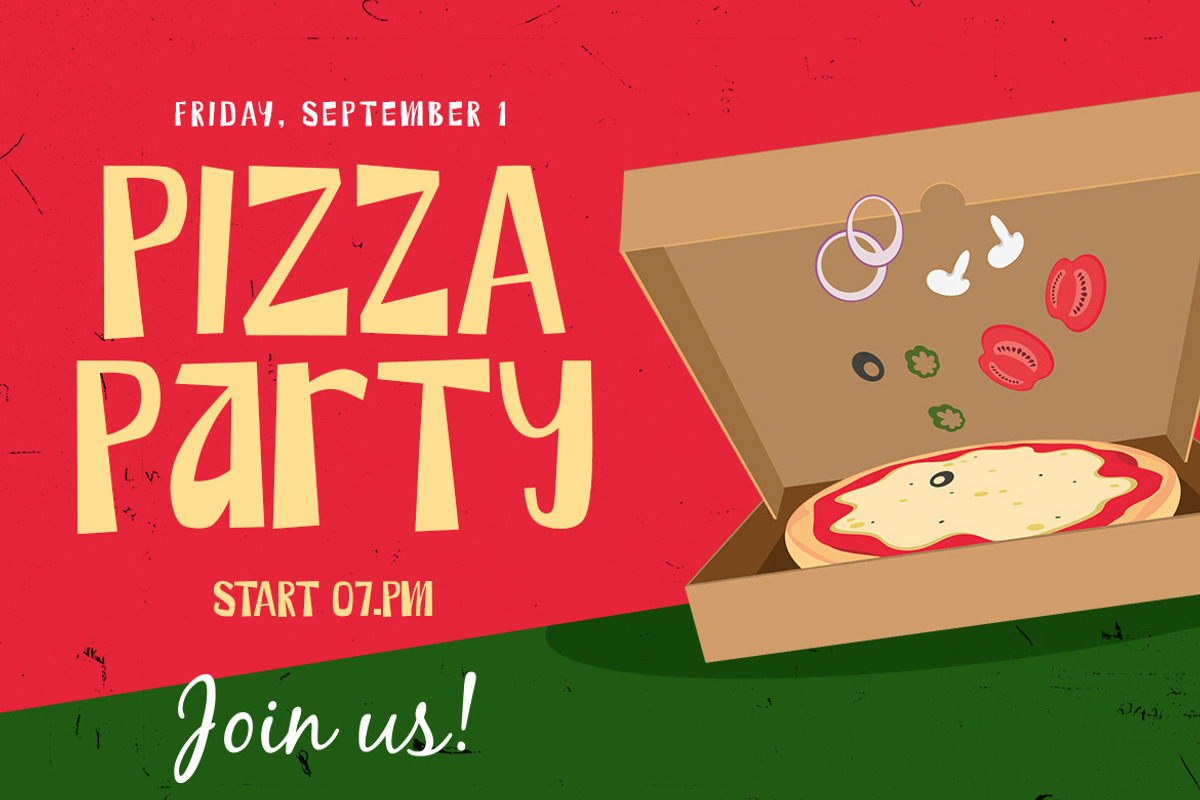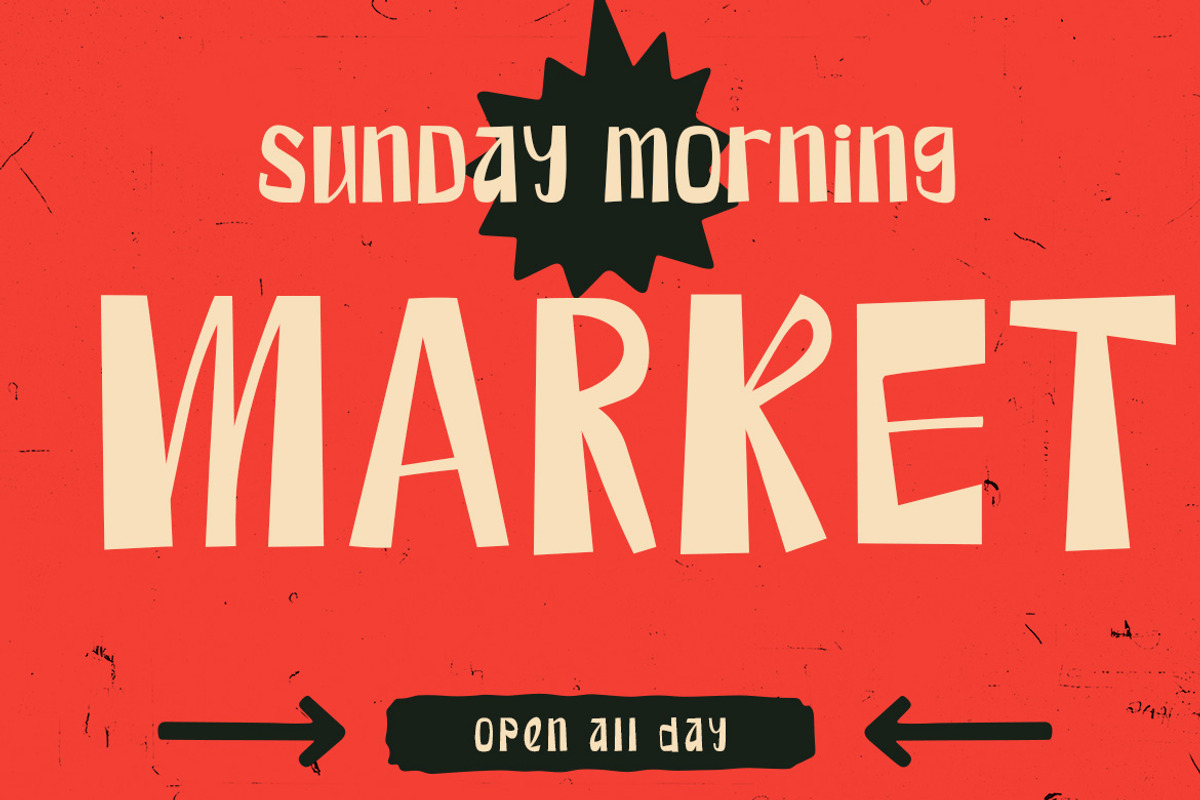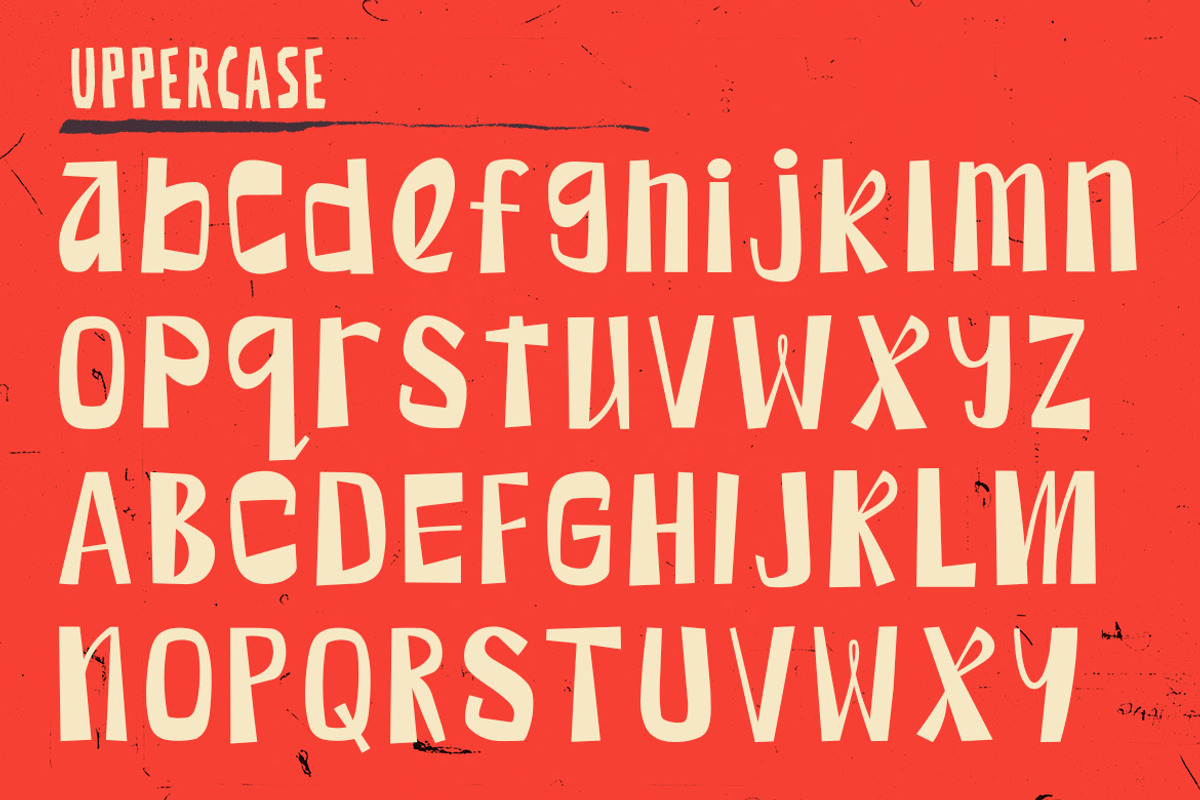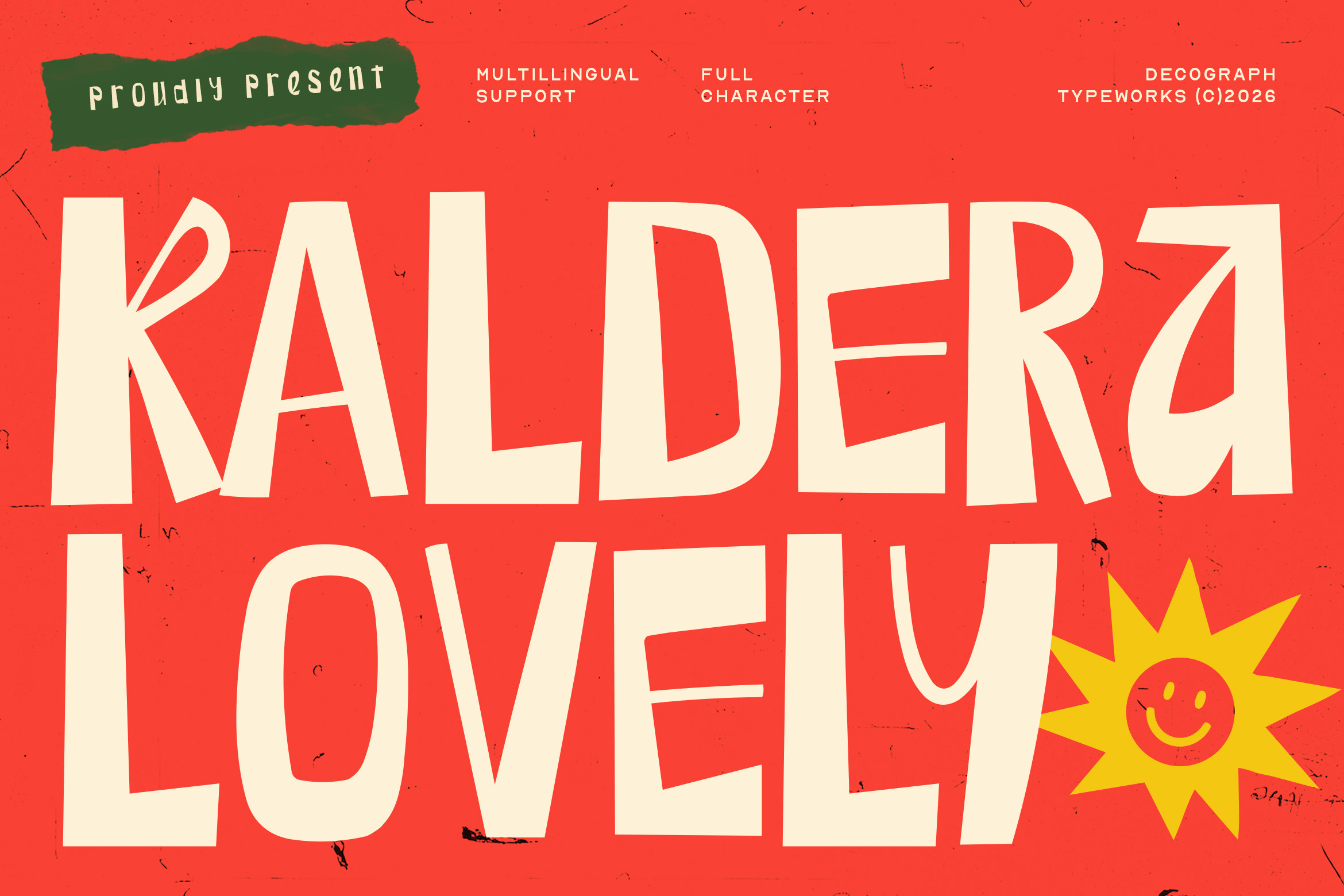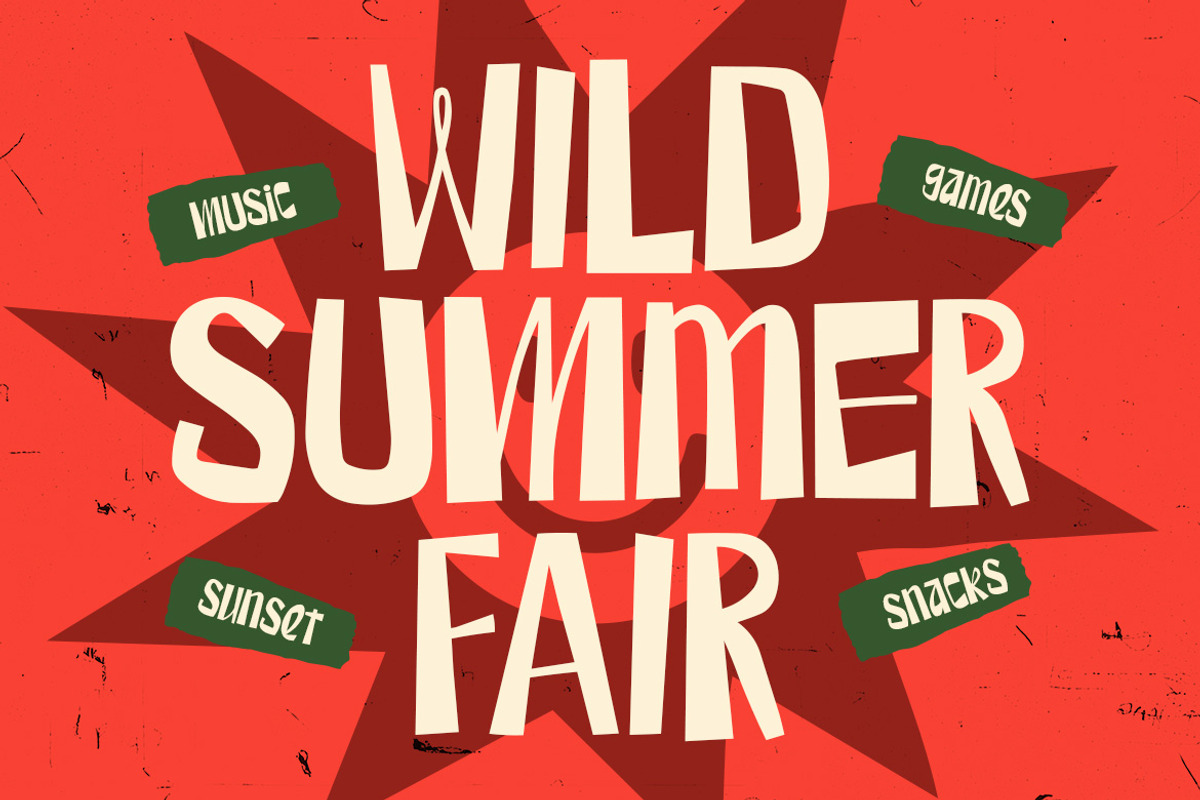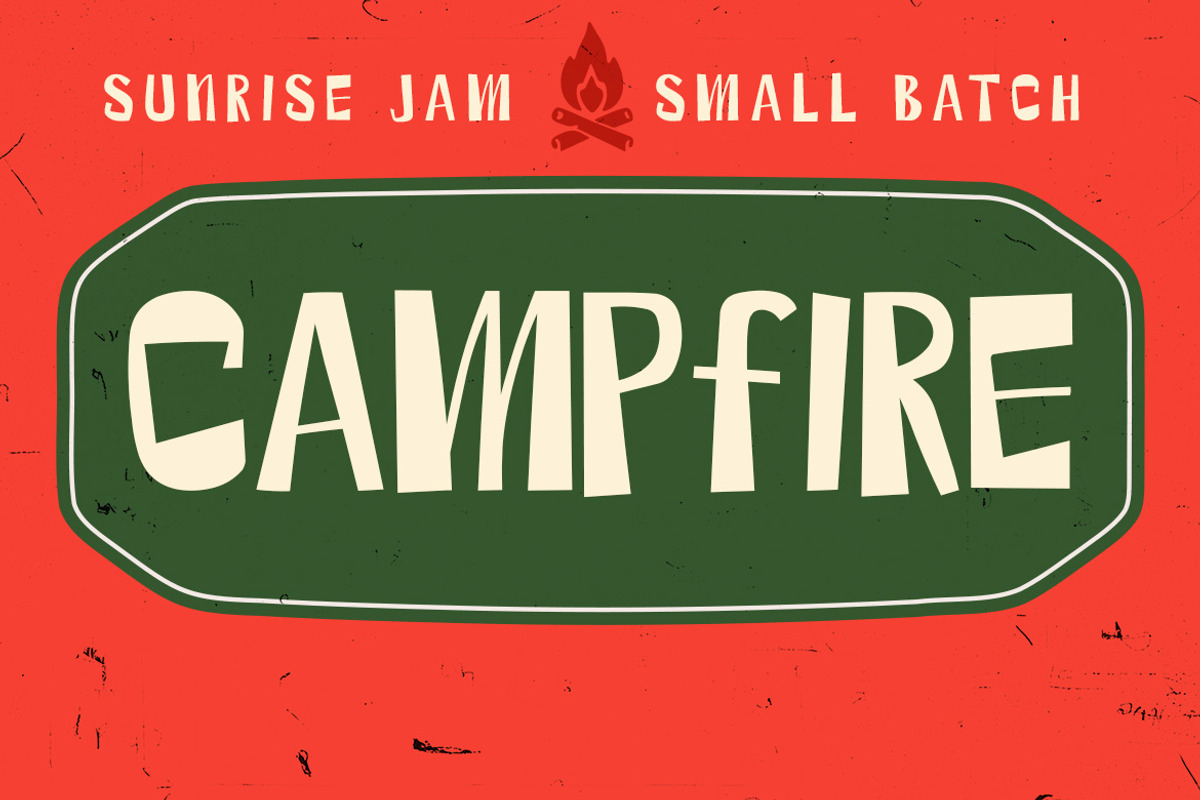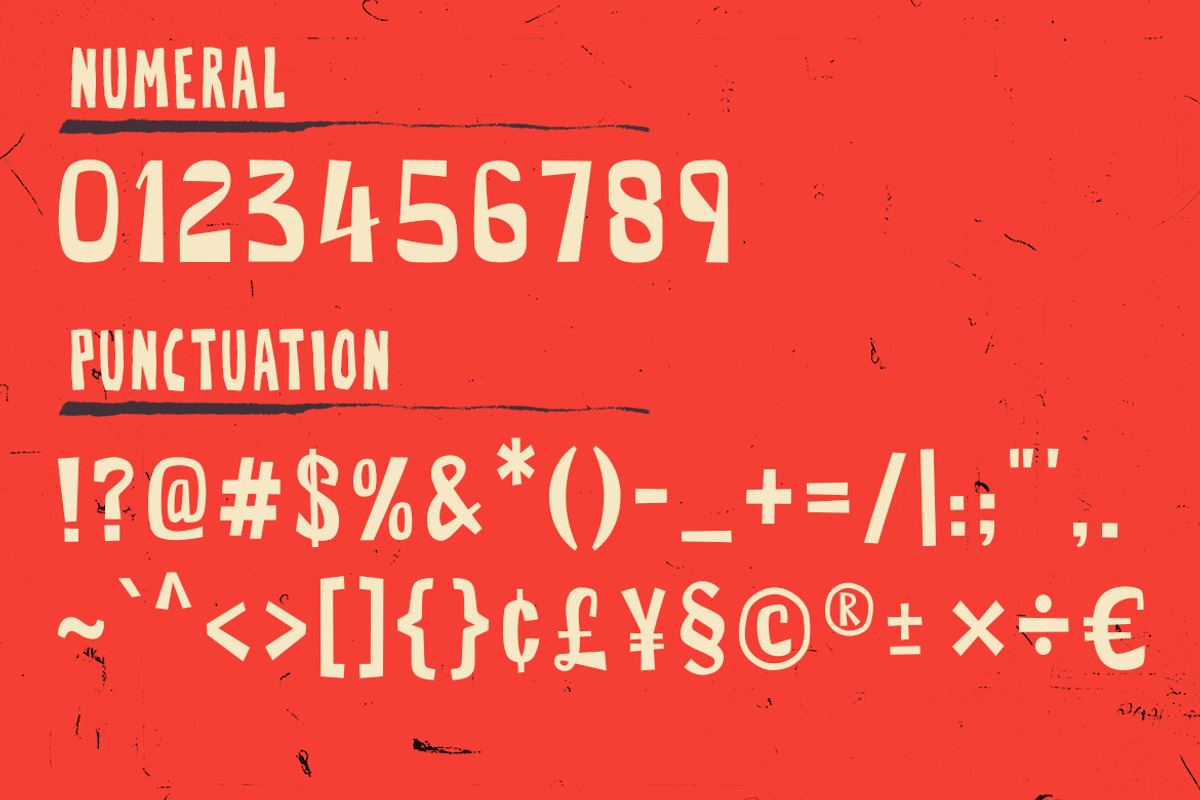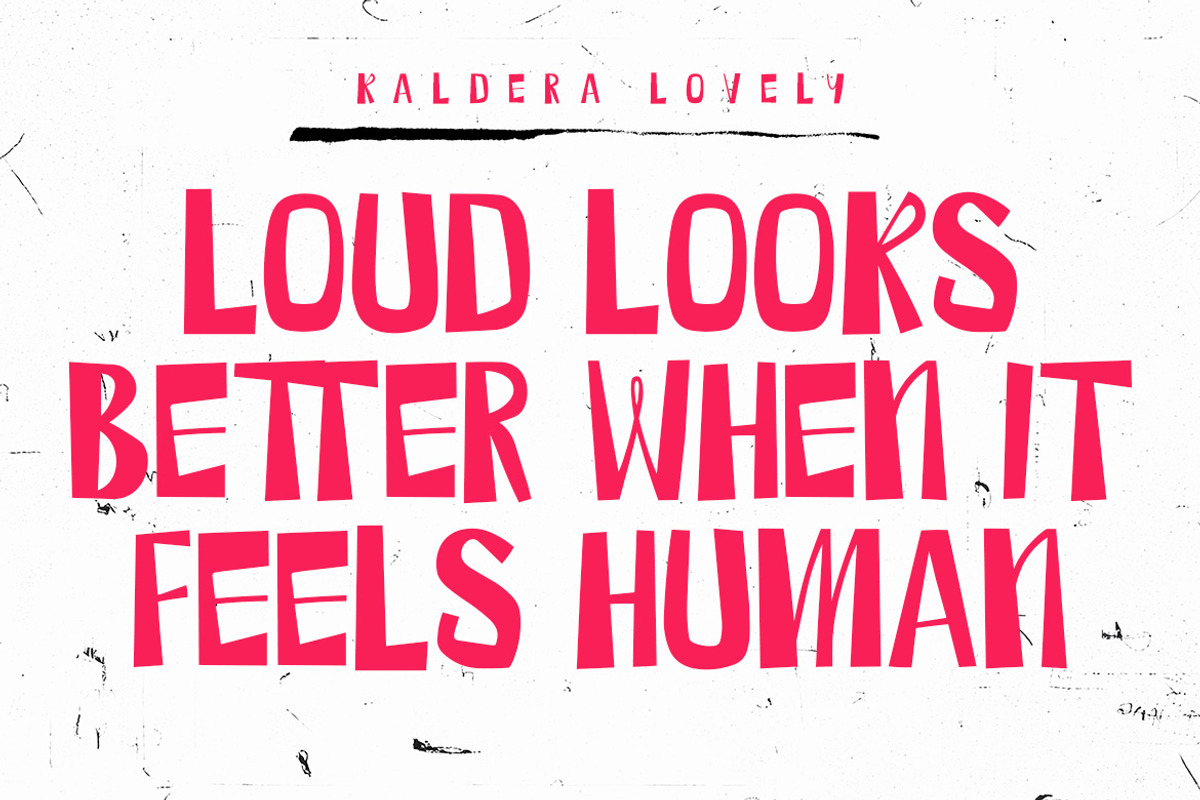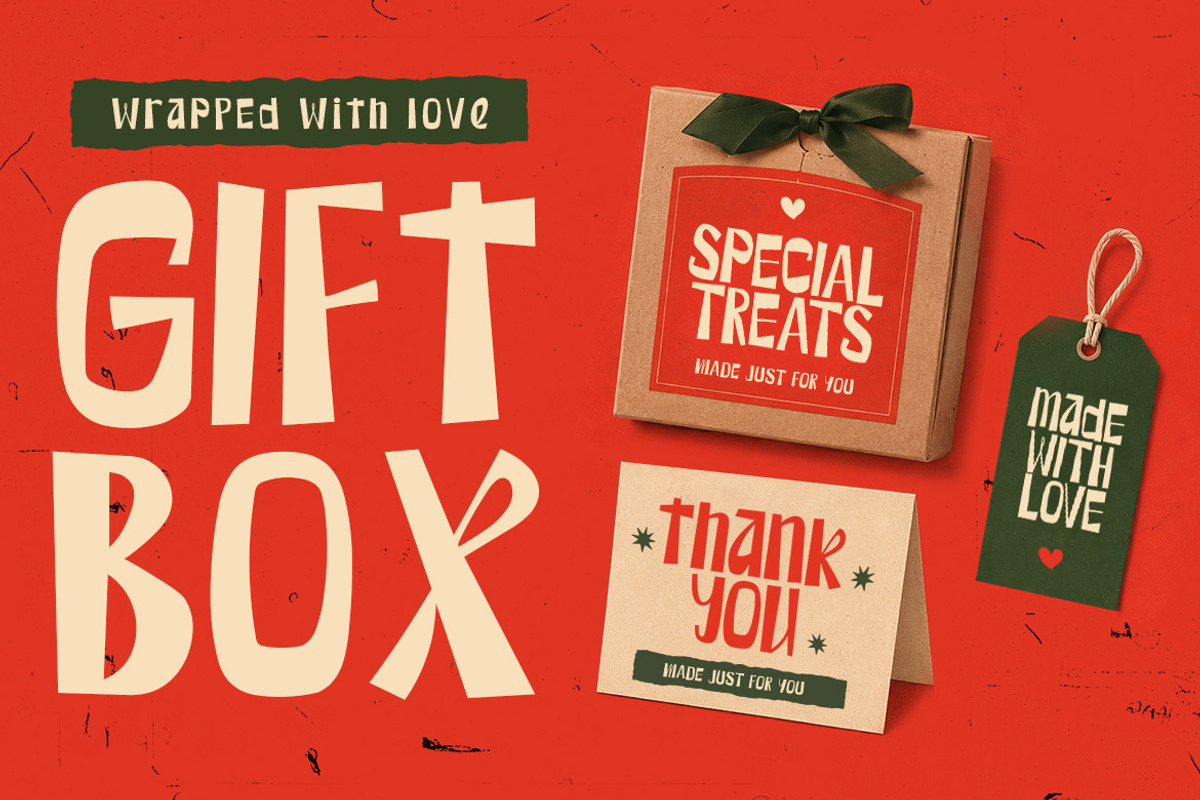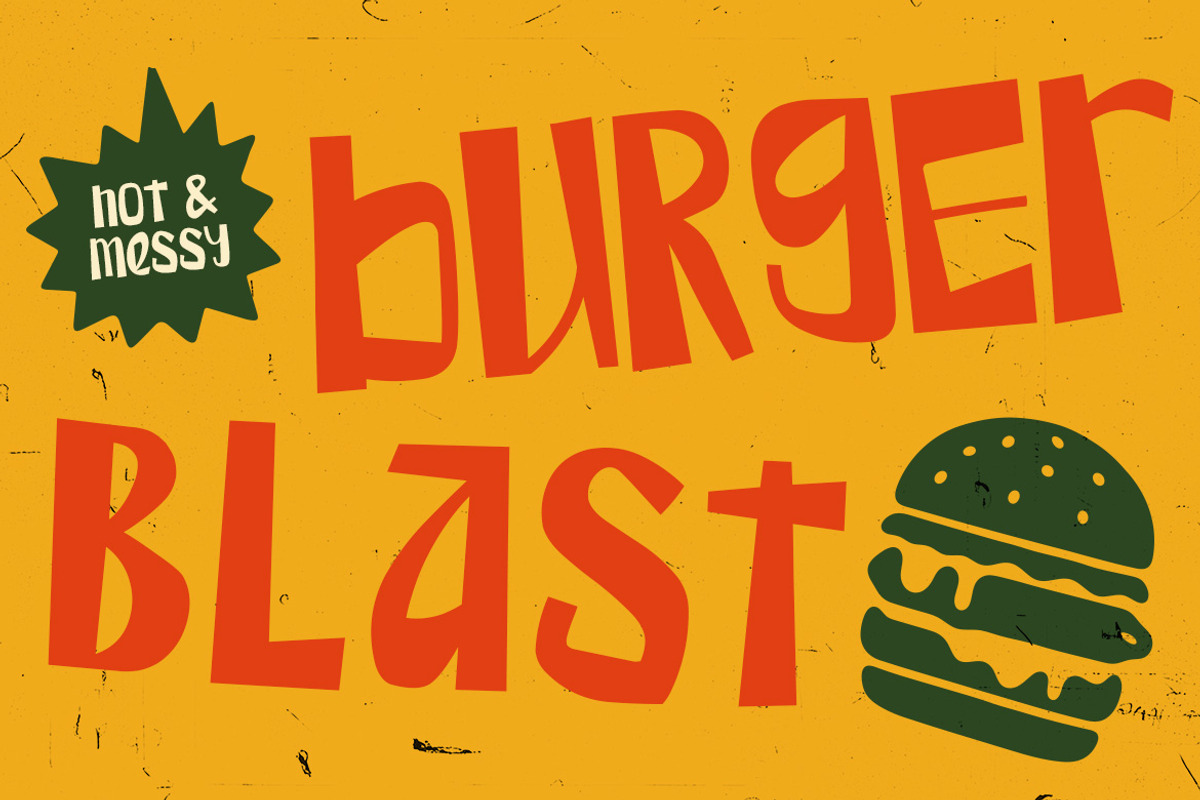
Kaldera Lovely –Playful Display Font
Kaldera Lovely is a playful handwritten display typeface that combines tall, loosely constructed letterforms with irregular proportions and organic curves. Its varied widths, uneven strokes, compact counters, and subtly unconventional shapes create a distinctive hand-drawn rhythm with plenty of personality. The narrow all-caps construction gives headlines a strong presence while keeping the overall character lighthearted and approachable. Designed for branding, posters, food packaging, cafe graphics, editorial headlines, merchandise, and social media, Kaldera Lovely delivers a visual tone that feels quirky, cheerful, expressive, and naturally handmade.
Lowercase
Smooth Kerning